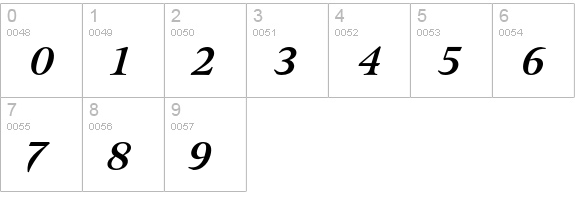
Meno-BoldItalic Font Details
Introducing Meno-BoldItalic, a modern and sophisticated font that exudes confidence and style. With its bold and italicized appearance, this font is perfect for making a statement in your design projects. The sleek lines and sharp angles of Meno-BoldItalic add a touch of elegance to any text, making it stand out from the crowd. What's even better is that Meno-BoldItalic is available for free download at FontsMarket.com. You can easily add this versatile font to your collection and use it in a variety of projects without any cost. Whether you're designing a logo, creating a poster, or crafting a website, Meno-BoldItalic is sure to elevate your work to the next level. Don't miss out on the opportunity to enhance your designs with the striking Meno-BoldItalic font. Download it for free today and unleash your creativity like never before!